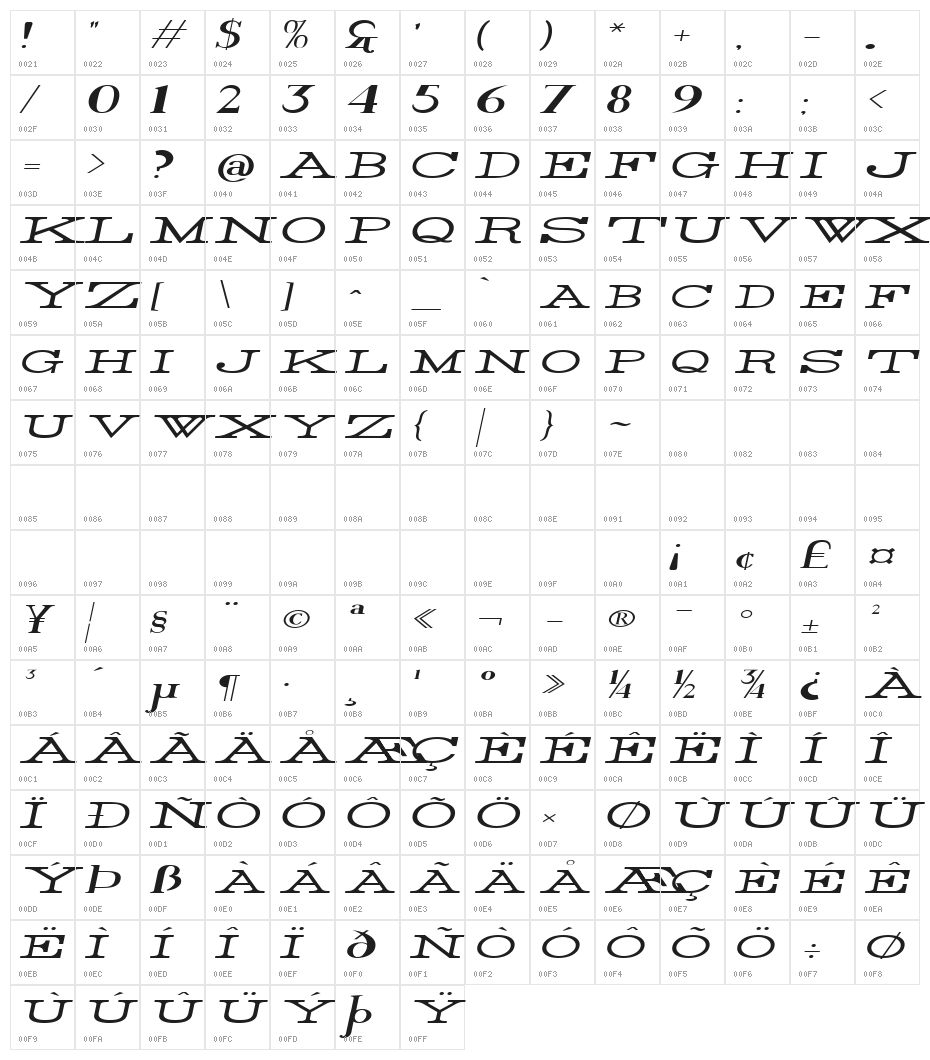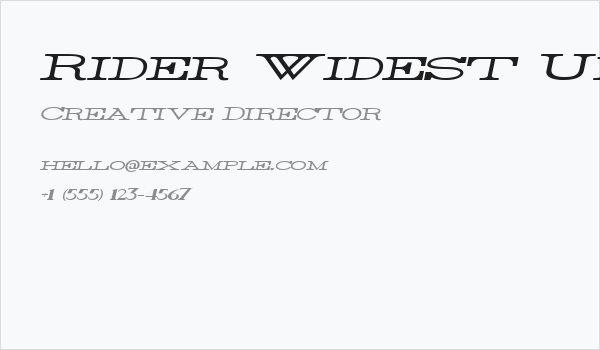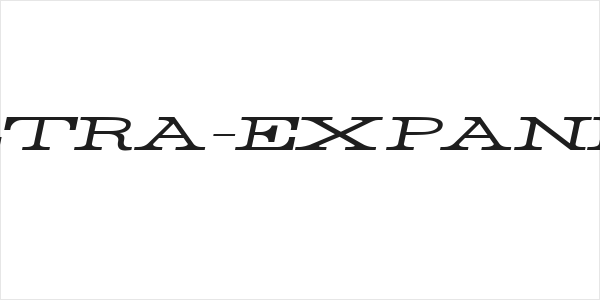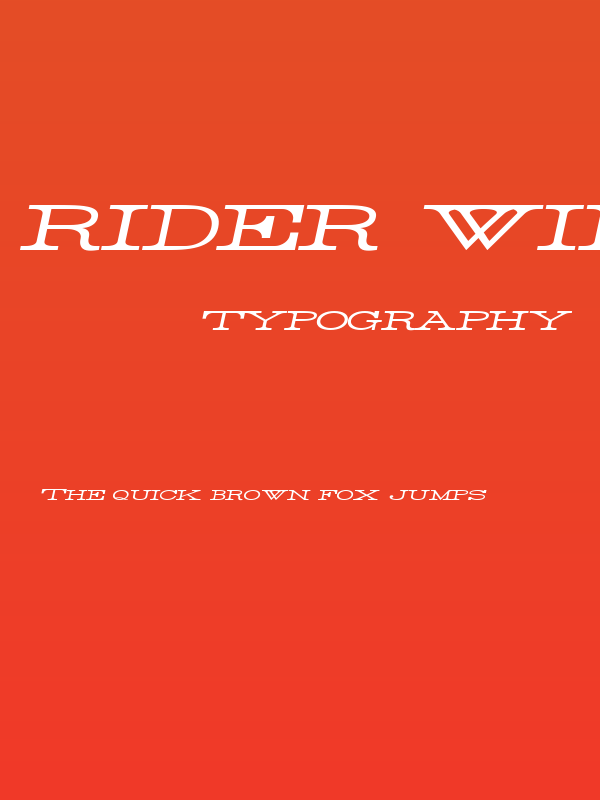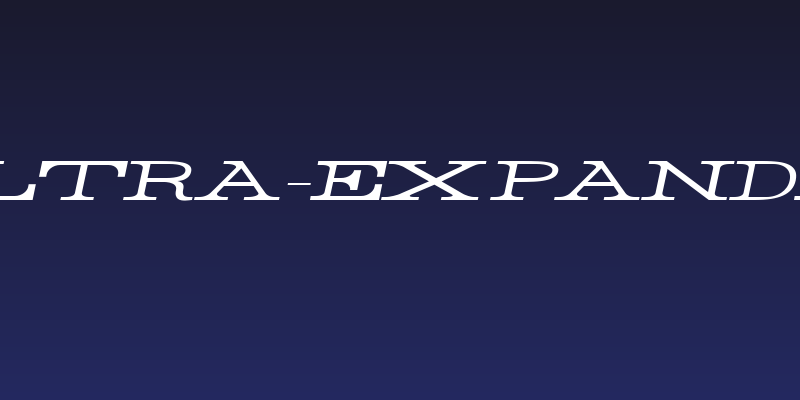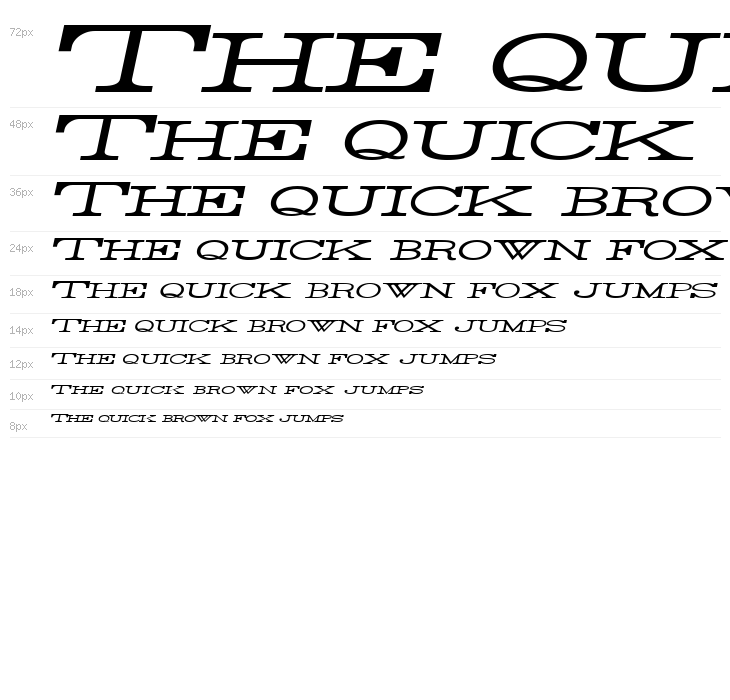
Rider Widest Ultra-expanded Light Italic Font
Rider Widest Ultra-expanded Light Italic Description
This font exhibits a distinctive ultra-expanded style with a light weight, characterized by its italicized form. The letters are elegantly stretched, giving a sense of grandeur and openness. The strokes are smooth and consistent, with a slight slant that adds a dynamic feel. The numerals are bold and prominent, maintaining the same expanded and italicized characteristics. Special characters are creatively designed, maintaining the overall aesthetic of the font. This font is ideal for making a bold statement while retaining a touch of elegance.
| Proposed Projects | Ideal for headlines, posters, and branding projects that require a bold yet elegant typeface. |